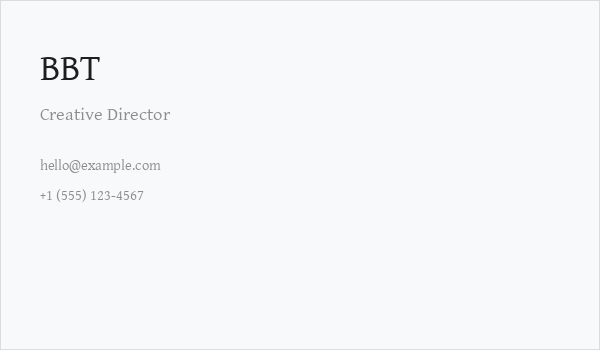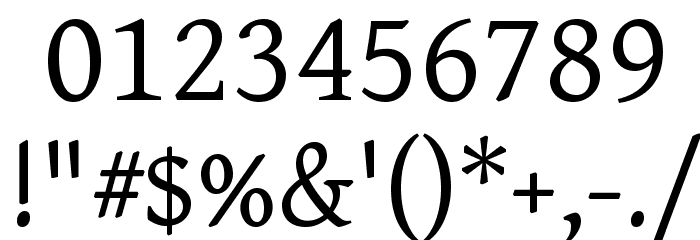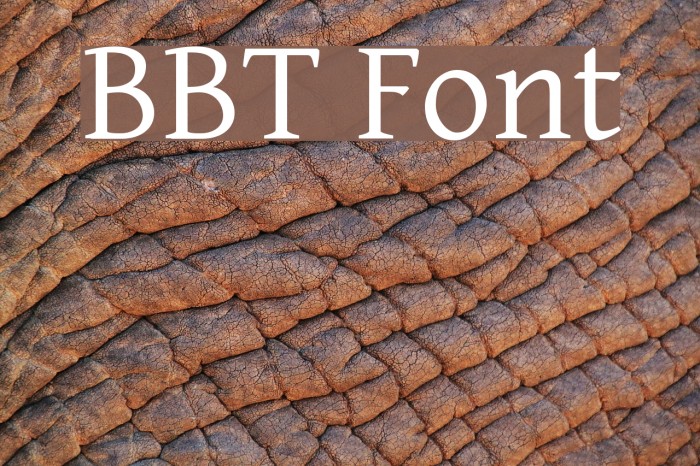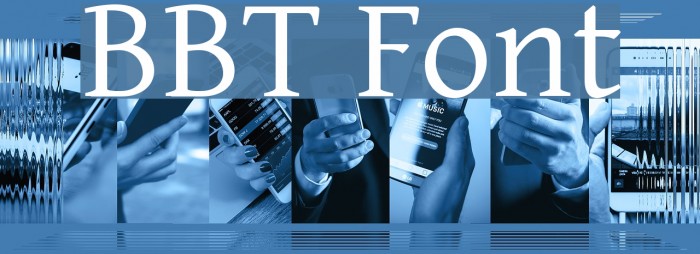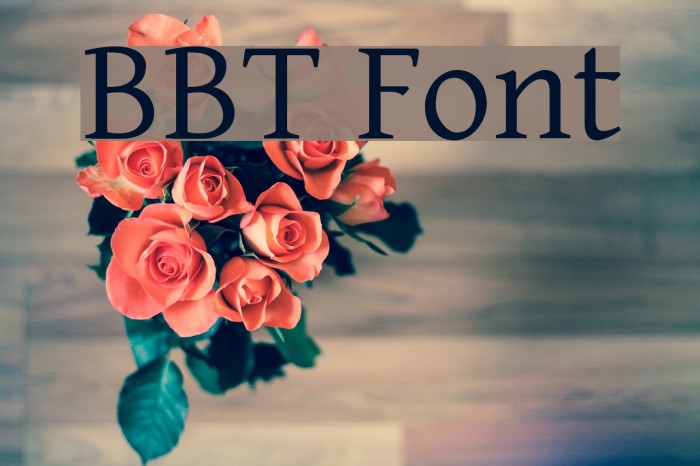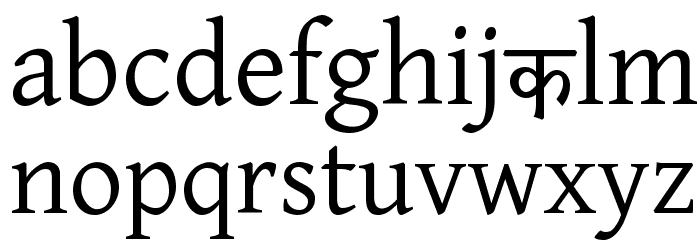
BBT Font
✎ Serif
BBT Description
This font features a classic serif style with elegant and refined strokes. The uppercase letters are bold and commanding, while the lowercase letters maintain a graceful and balanced appearance. The numerals are clear and easily distinguishable, making them suitable for a variety of applications. Special characters are well-integrated, maintaining the overall aesthetic of the font. The serifs are pronounced, adding a touch of sophistication and tradition. This font is versatile, suitable for both digital and print media, and can be used in a variety of design contexts.
| Categories | Serif |
| Overall Style | Classic |
| Use Case | Headlines, Body text, Logos |
| Proposed Projects | Ideal for book covers, editorial layouts, formal invitations, and branding projects. |